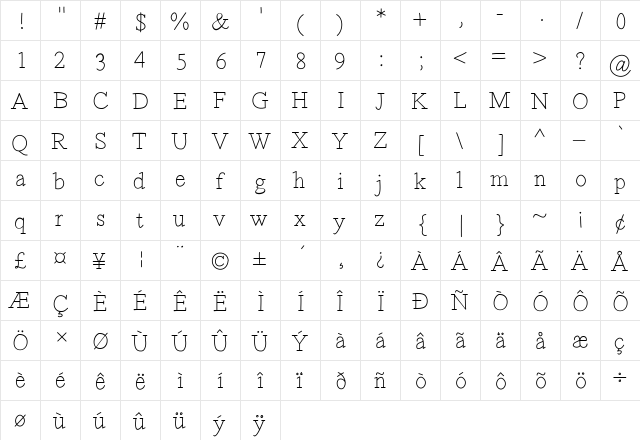
Maxwell Medium
Design Context for Maxwell Typeface
Maxwell offers clean, dependable letterforms without strong stylistic allegiance, making it a practical choice for designers who need flexibility.
Pro Tip: Use Maxwell in both headline and body roles to test its range before committing to a single application.